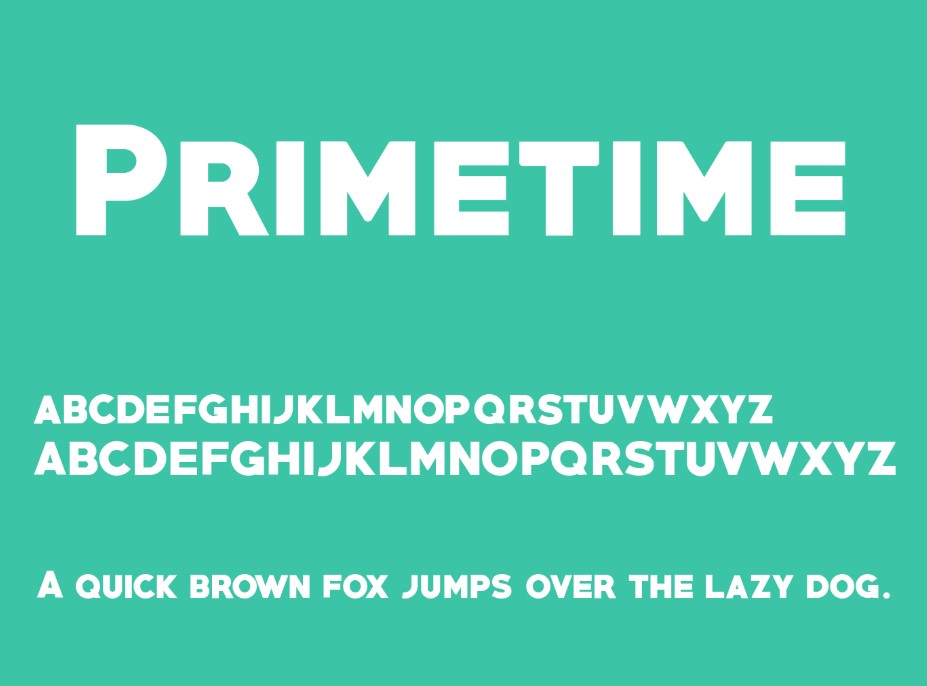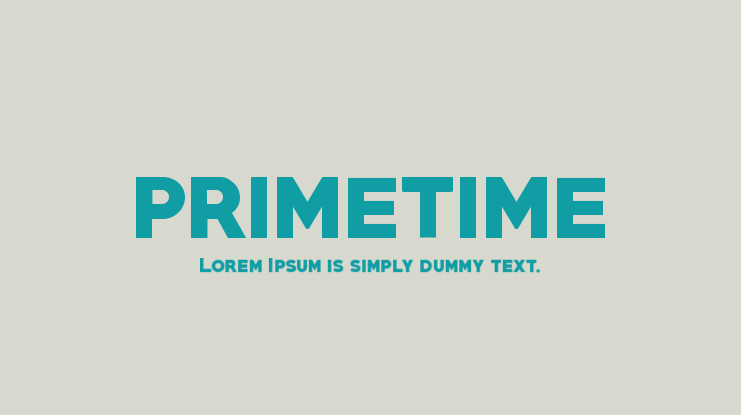
Primetime Font
Primetime Font is available here for free download in zip file format. This font is a couture typeface, that is similar to the montserrat font. This font has been attractively common through the usage of a pointer with a tinny brush on acrylic newspaper. Its appearances are exceptional in darkish paint colourings.
It’s miles the primary otf font, and we find out it irresistible due to its terrific high-quality patterns. Unluckily, you can most absolutely use it in adobe photoshop and illustrator, but, in case you want to accumulate the general-colour blessings. Primetime Font Free This font has an elegant appearance and touches with its threesome of outlines in respectively letter introduction. Apply it to commonplace to massive sizes for headings, works of art and plenty greater.